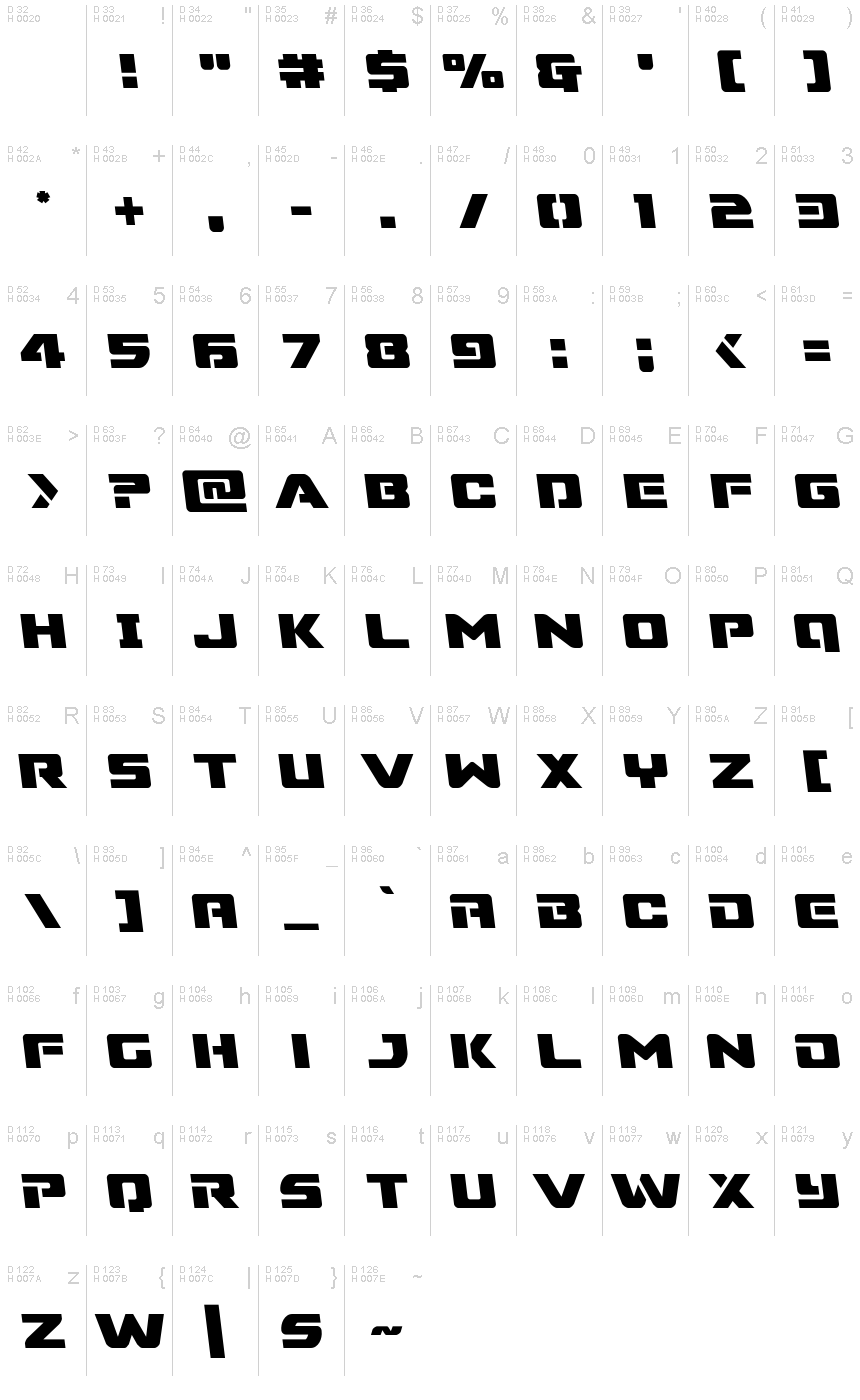
Super Commando Semi-Leftalic
Super Commando Semi-Leftalic is a captivating display typeface from the Super Commando family, designed by Iconian Fonts. This font exudes a bold, futuristic charm that immediately commands attention. Its strikingly expanded structure creates an imposing presence, perfect for making statements in various design contexts.
Visually, the semi-leftalic style adds a dynamic flair, enhancing its modern aesthetic while infusing energy into every letterform. The font’s distinct characteristics make it ideal for eye-catching headlines, captivating branding materials, and adventurous graphic designs that aim to stand out. Whether used for posters, logos, or digital media, Super Commando Semi-Leftalic promises to leave a lasting impression and resonate with audiences seeking originality and innovation.